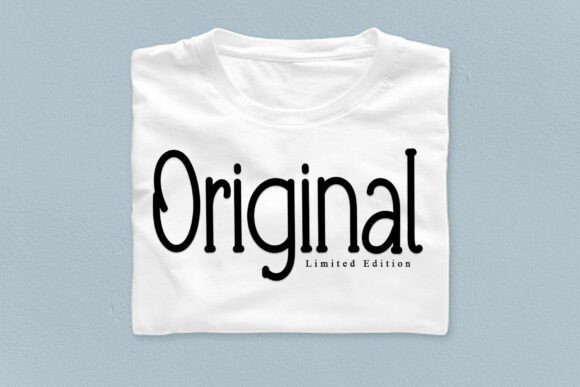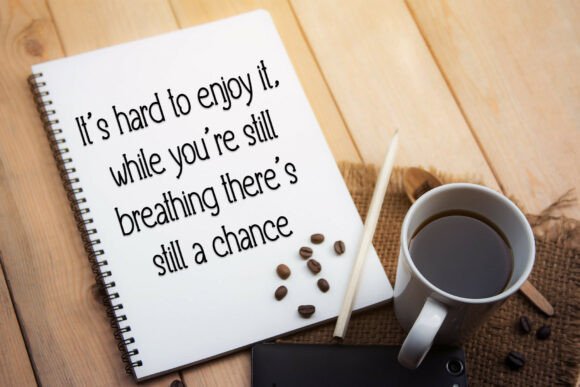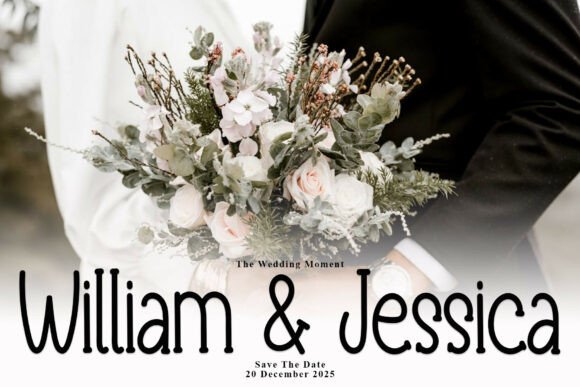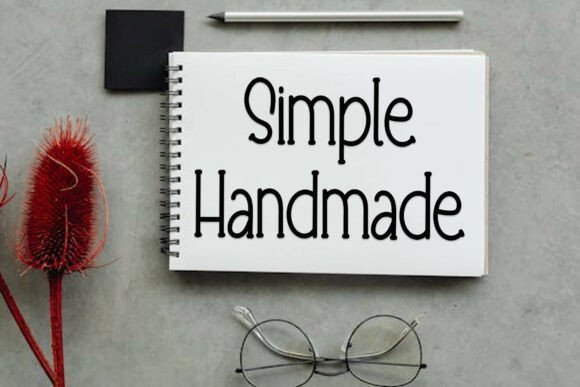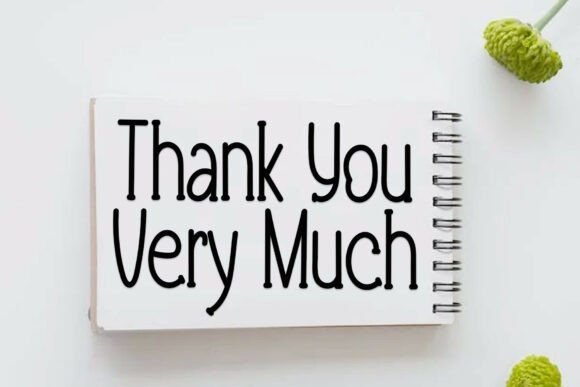
Introducing Digital Paper Font: A Timeless Handwritten Delight
Are you a designer or crafter looking for a font that can add a touch of elegance and personality to your projects? Look no further than Digital Paper Font, a lovely and timeless handwritten font that’s perfect for creating eye-catching logos, branding, and quotes.
The Unique Charm of Digital Paper Font
What sets Digital Paper Font apart from other fonts is its unique and beautiful touch. Every letter has been carefully crafted to have its own distinct character, making it a true standout in the world of typography. Whether you’re looking to create a bold statement or a subtle impression, Digital Paper Font is the perfect choice.
Digital Paper Font is a versatile font that’s perfect for a wide range of design projects. Whether you’re a professional designer or a crafter looking to add a personal touch to your work, this font is sure to impress. Here are just a few ways you can use Digital Paper Font:
- Logos and Branding: Create a lasting impression with a custom logo or branding that showcases your unique style.
- Quotes and Posters: Add a touch of elegance to your quotes and posters with a font that’s both easy to read and visually appealing.
- Stationery and Invitations: Make your stationery and invitations stand out with a font that’s both beautiful and timeless.
Why Choose Digital Paper Font?
So why choose Digital Paper Font over other fonts? Here are just a few reasons:
- Unique and Handwritten: Digital Paper Font is a truly unique and handwritten font that will add a personal touch to your designs.
- Easy to Read: Despite its unique character, Digital Paper Font is easy to read and understand, making it perfect for body text and headlines.
- Highly Versatile: Digital Paper Font can be used for a wide range of design projects, from logos and branding to quotes and posters.
Tips for Using Digital Paper Font
Here are a few tips for getting the most out of Digital Paper Font:
- Experiment with Sizes: Digital Paper Font looks great in a variety of sizes, so don’t be afraid to experiment to find the perfect fit for your design.
- Pair with Other Fonts: Digital Paper Font pairs well with a wide range of other fonts, so feel free to get creative and try out different combinations.
- Use for Headlines and Body Text: Digital Paper Font is perfect for both headlines and body text, making it a great all-around font for your design projects.